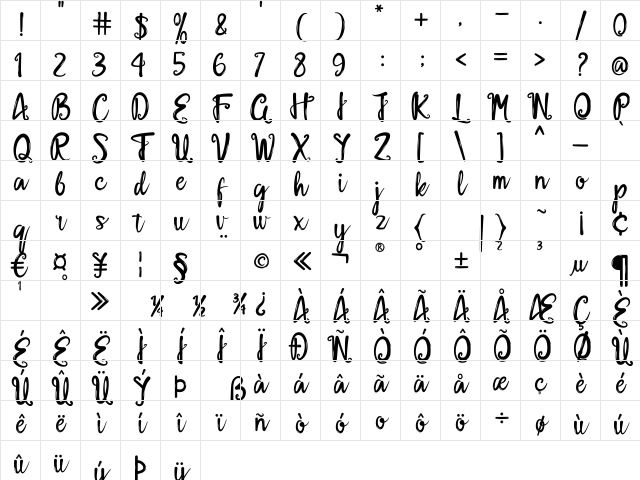
Rollingstore Regular Free Font
Rollingstore Regular
Foundry: Wefont
Designer: Insan Nurbahagia
Design Context for Rollingstore
Rollingstore is a composed and adaptable typeface that performs quietly and consistently across a wide range of design contexts.